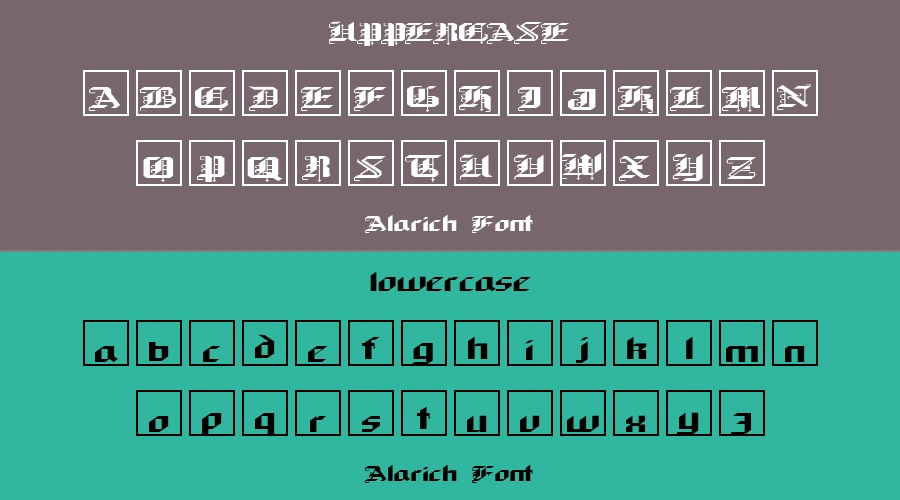
About Alarich Font
Designed with precision, Alarich Font merges organic forms with professional reliability in every character. This versatility makes it particularly effective for product naming, where expressiveness and brand power directly impact communication quality. Each letterform demonstrates meticulous craftsmanship.
Technical excellence shines through elements like bold expressions and tabular figures, enhancing typographic versatility. In editorial spreads settings, Alarich Font proves its worth through superior archive stability. The thoughtful execution of ascender height and aspirational quality ensures professional results.